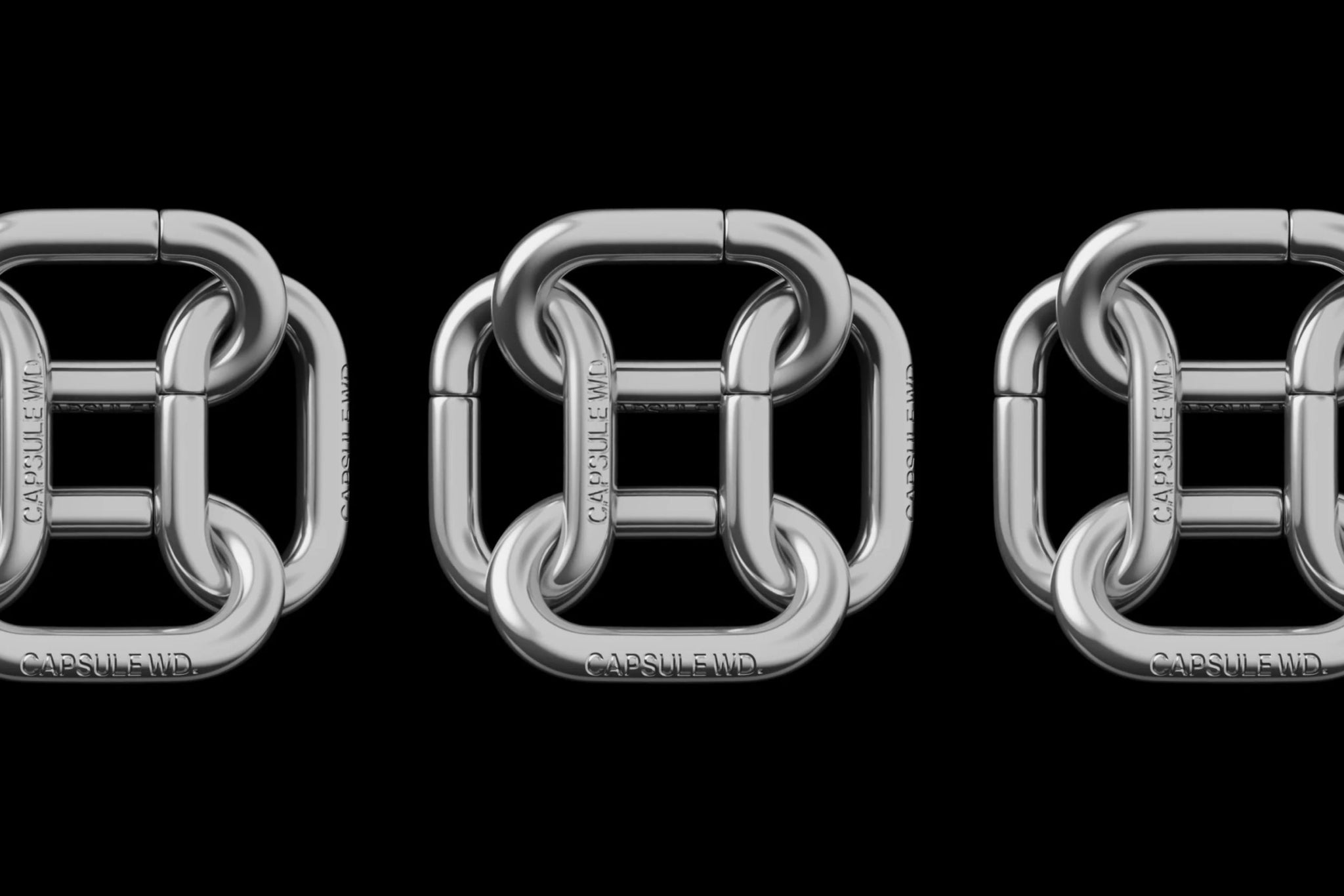
Capsule WD isn’t just a fashion brand – it’s a tried and tested formula for building a foolproof wardrobe.
In an industry that hasn’t seen true innovation in decades, Capsule WD is pioneering a new model of slow and intentional fashion consumption by selling complete, considered collections. Alongside founder Ash Raso, we developed a brand identity that truly reflects her vision to create a brand of influence and good chemistry.
The creative direction of the brand draws heavily on the concept of fashion as a formula, blending scientific cues with capsule street style. We translated this into a design system that feels clean, confident, and intentional. From logo to layout, every element is engineered to feel wearable, refined, and quietly iconic.
A monochrome palette sets the tone – versatile, understated, and ready to layer. It acts as a visual metaphor for the capsule wardrobe itself: foundational, elevated, and impossible to get wrong. Type choices are deliberately self-assured, with sophisticated sans, mono numerics, and cool grotesques that create space for edge and clarity in equal measure. The hierarchy is considered and experimental, delivering visual rhythm and confidence across every touchpoint.
Subtle chrome accents and moments of high gloss are contrasted against iconic matte finishes to bring a tactile, scientific edge to the brand’s packaging. Photography captures a duality of moods: metropolitan minimalism meets off-duty muse. Think flash-heavy street scenes, studio stills, sharp shadows, and editorial angles that radiate quiet power.
This is a brand designed to influence and reformulate. From art direction to tone of voice, every asset contributes to a larger narrative: this is the formula for a foolproof wardrobe.
Implementing a brand system that is timeless, modular, and unmistakably cool – Capsule WD is built to scale and built to last.